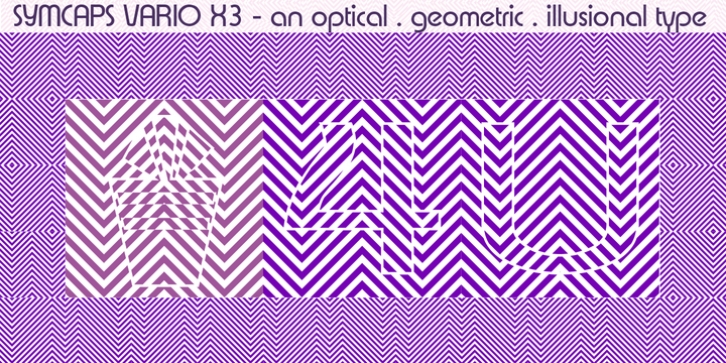
Symcaps Vario X3 was designed by Denise Koehler and published by Deniart Systems. Symcaps Vario X3 contains 1 style.
The Symcaps Vario X3 typeface is a monospaced design created to give optically symmetrical message forms.